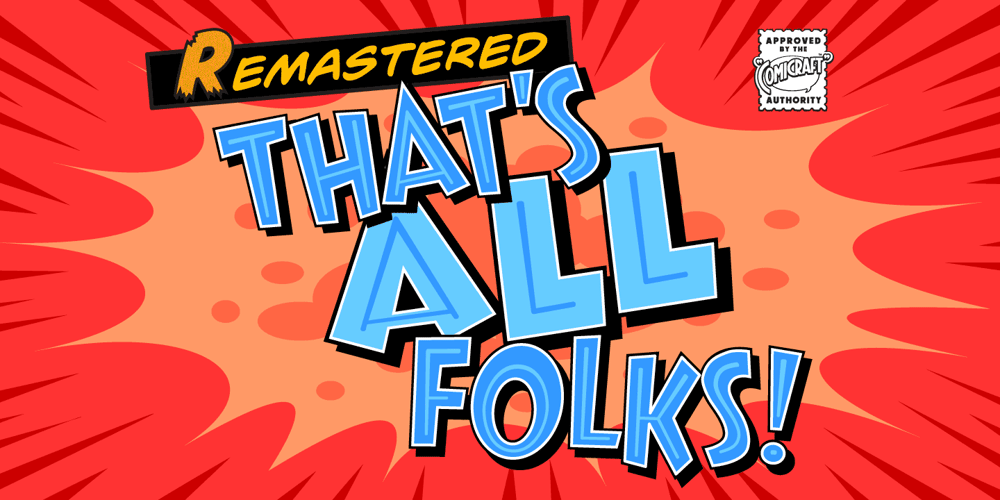
Thats All Folks
Thats All Folks font
Thats All Folks Font Family was designed by John Roshell and published by Comicraft. Thats All Folks contains 8 styles and family package options. Run amuck and head on down to Toon Town with us to enjoy some Madcap Laffs with our latest Frolicking Font, ’THAT’S ALL FOLKS’. It’s good, clean family fun for all your favorite comic cuts and looney’toons! What’s more, it’s (sing along) S-O-E, A-S-Y, T-O-U-S-E!